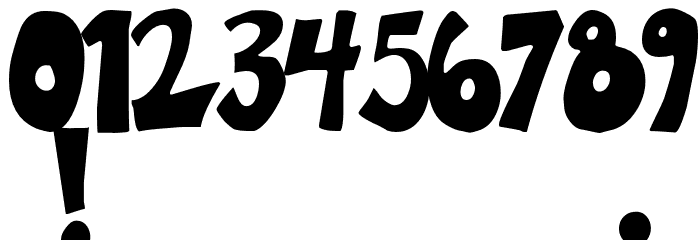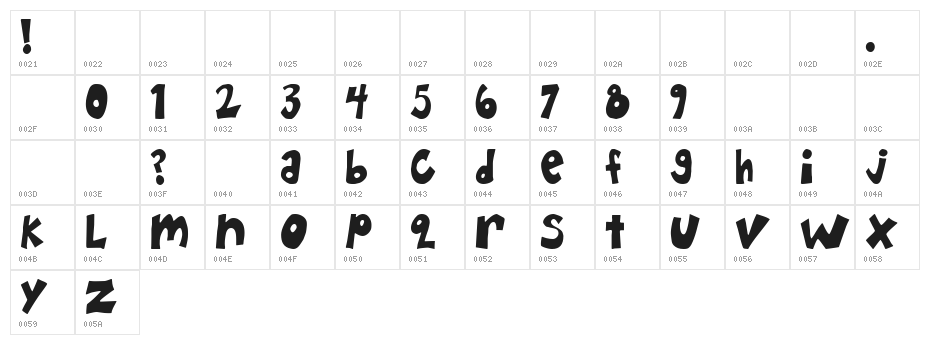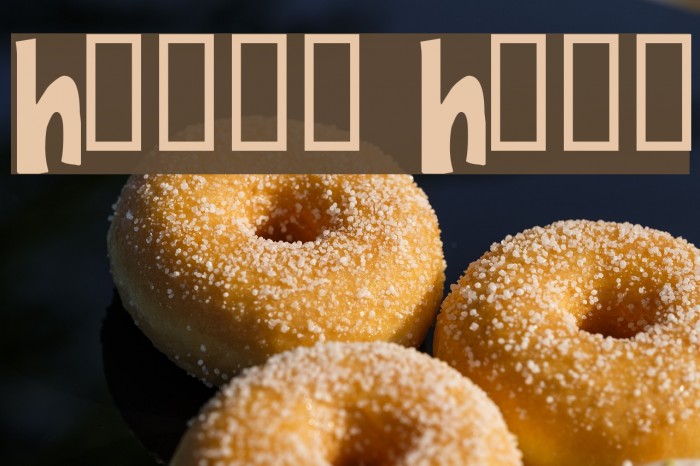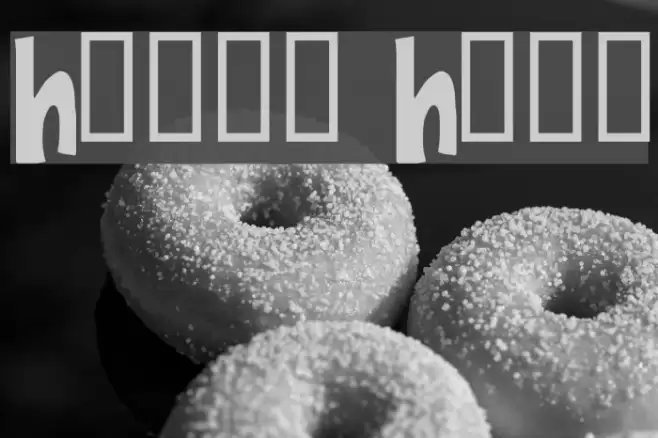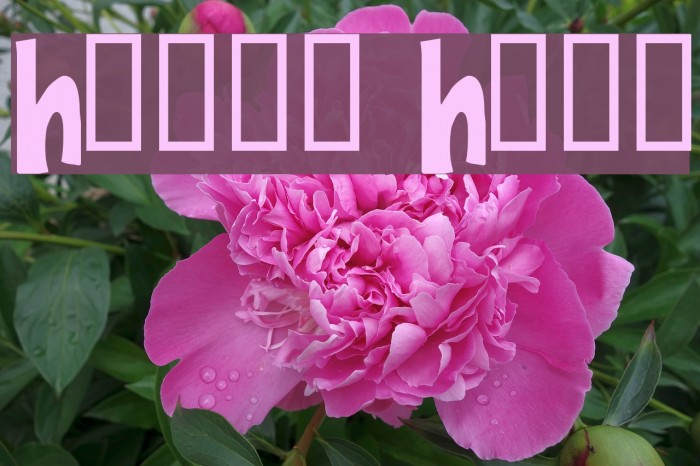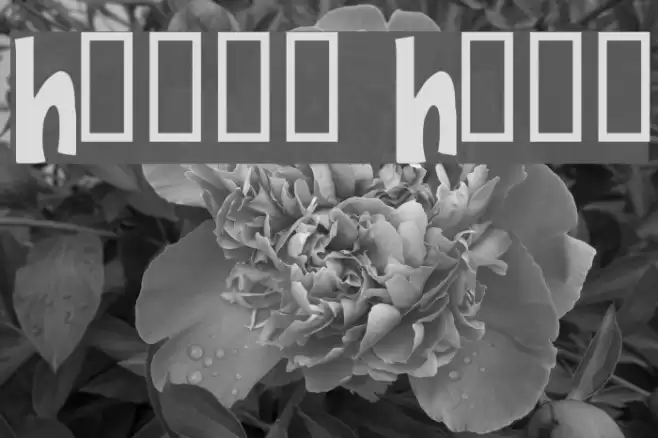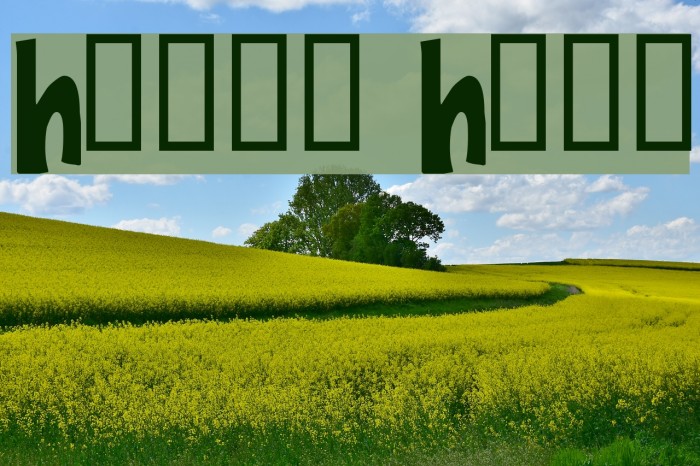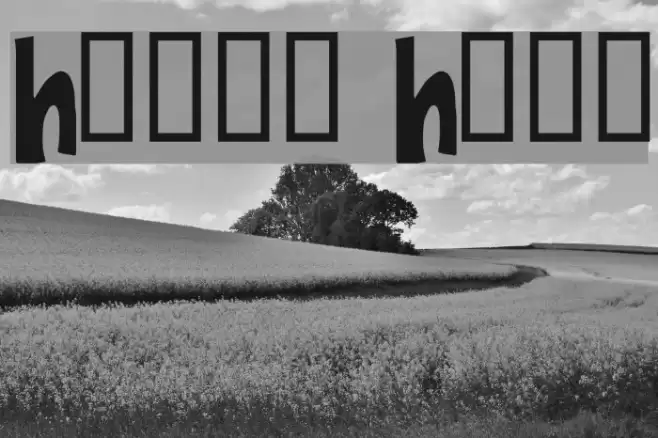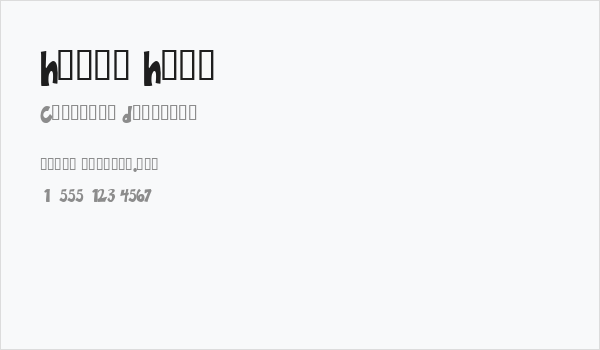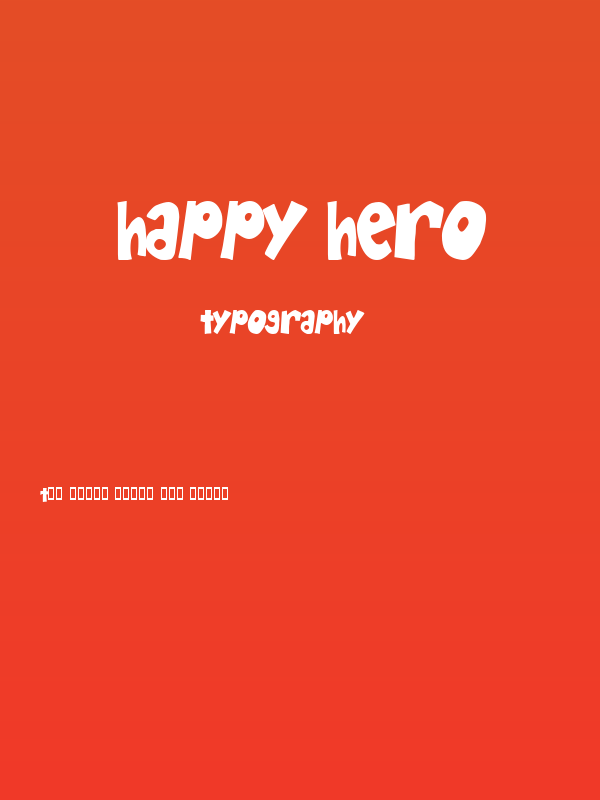
Happy Hero Font
Happy Hero Description
This playful and bold font features a whimsical and chunky design, characterized by its exaggerated curves and thick strokes. The letters have a hand-drawn, cartoonish appearance, making them ideal for projects that require a fun and lively touch. The uppercase and lowercase letters maintain a consistent style, with rounded edges and a slightly irregular baseline that adds to the font's charm. The numbers and special characters follow the same playful aesthetic, ensuring a cohesive look across all text elements.
| Proposed Projects | Ideal for children's books, playful branding, comic strips, and party invitations. |